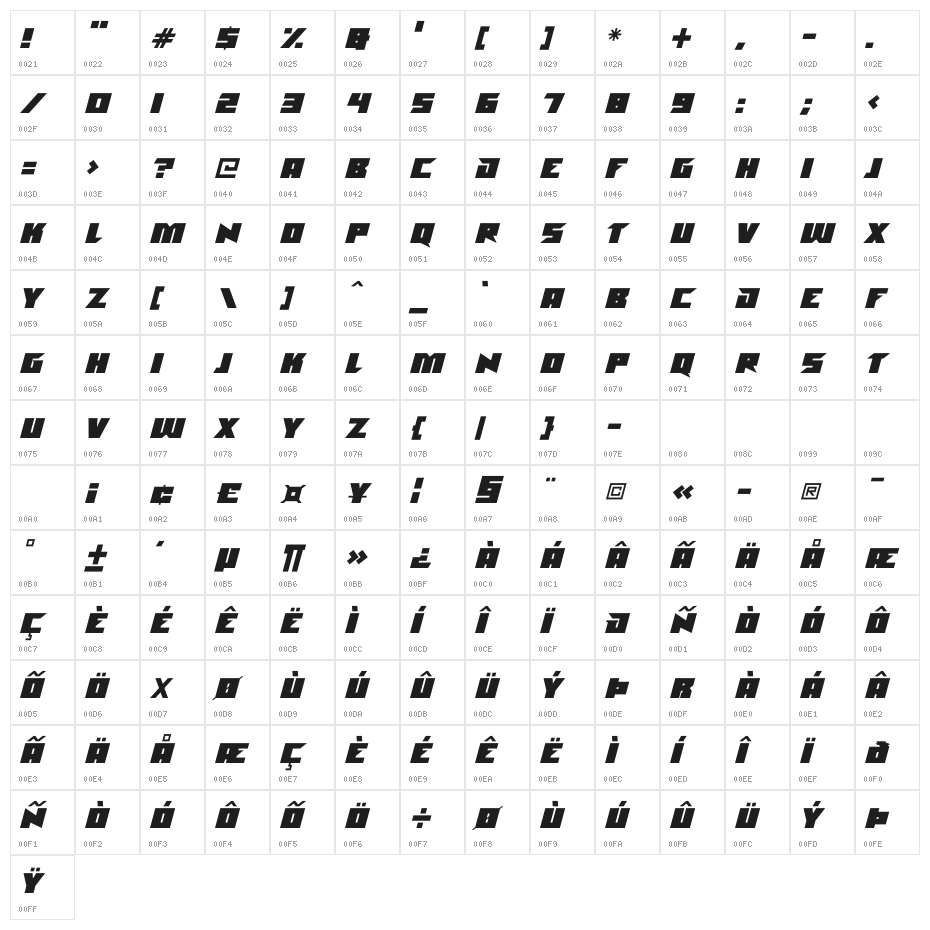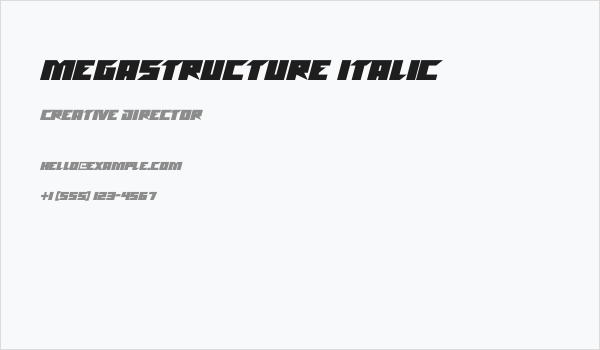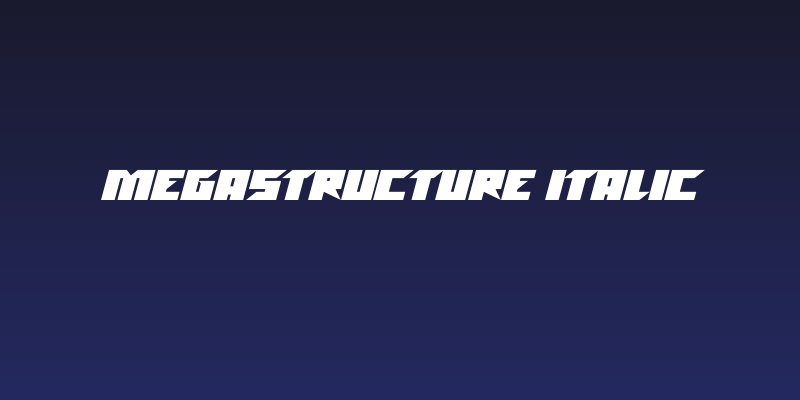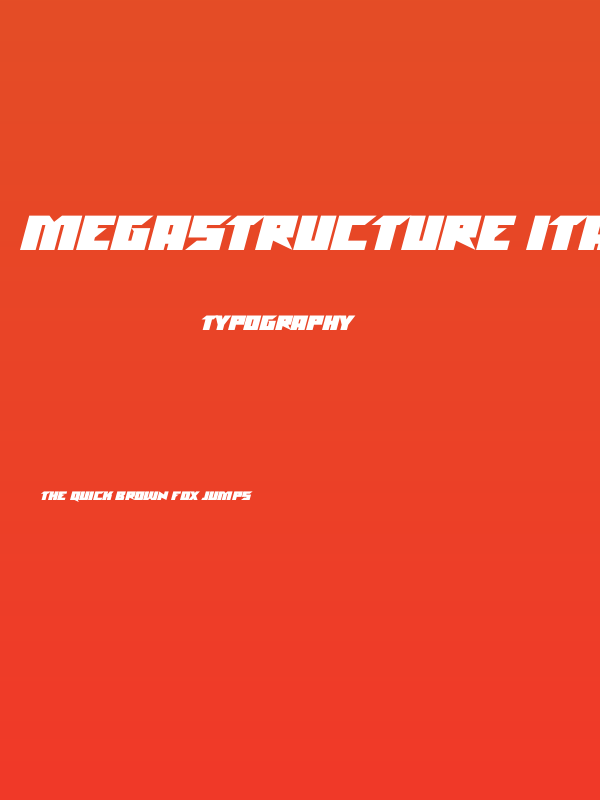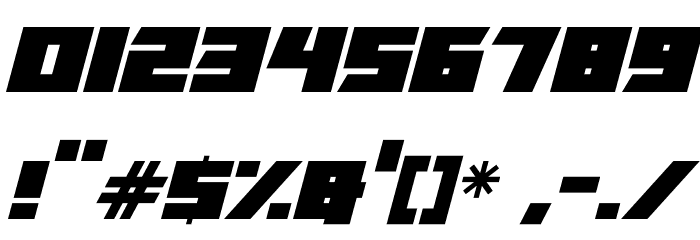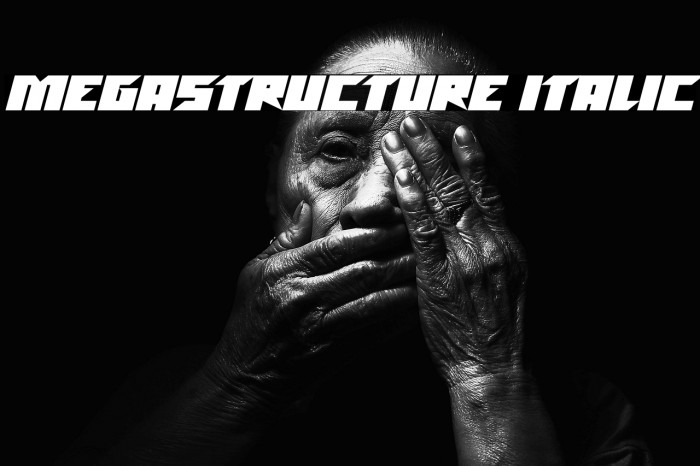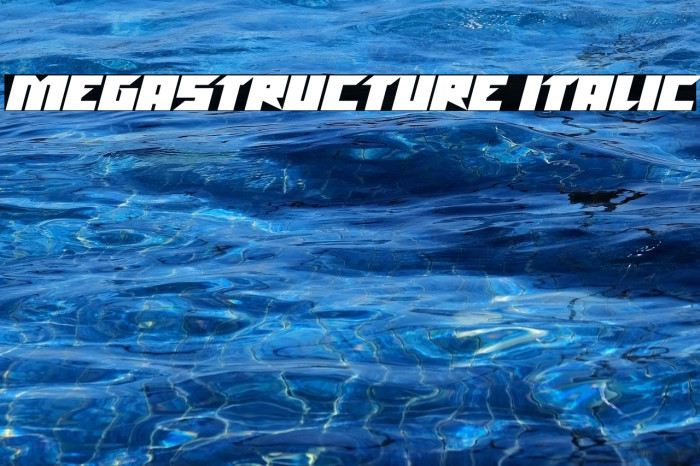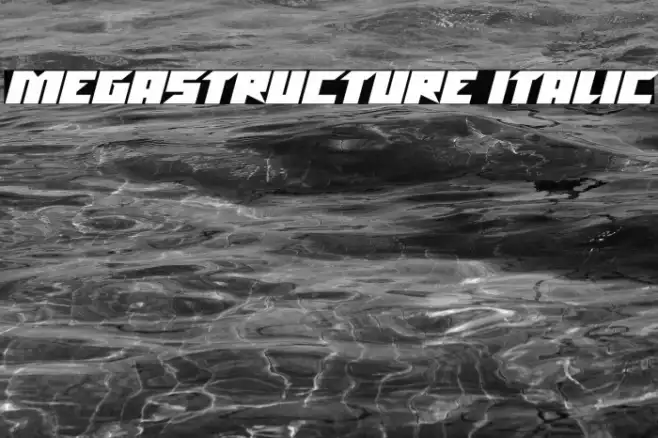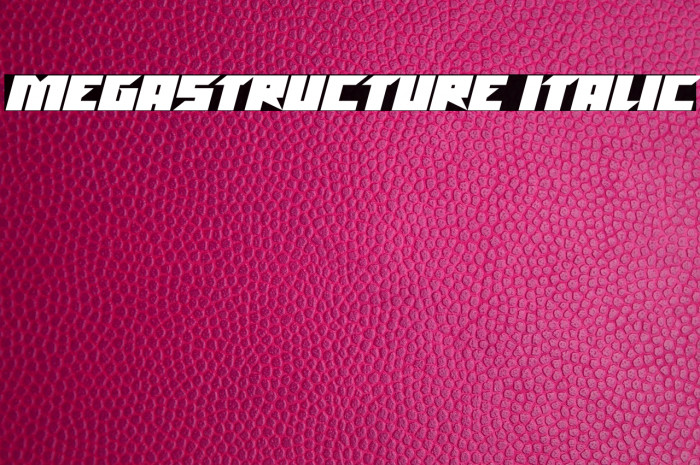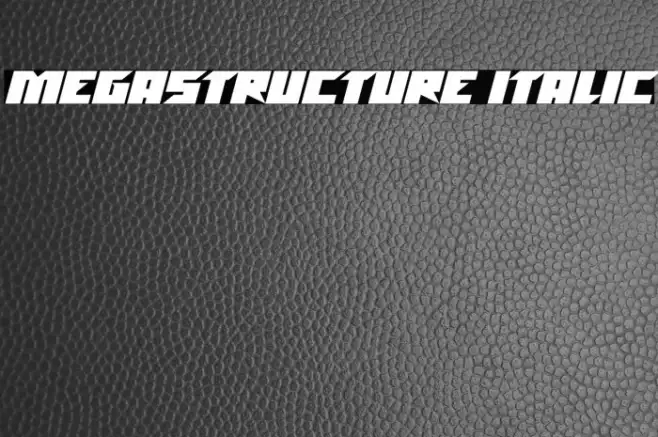
Megastructure Italic Font
Megastructure Italic Description
This font features a bold, angular design with a futuristic and dynamic appearance. The characters are sharply cut with geometric precision, giving them a strong, impactful presence. The uppercase and lowercase letters maintain a consistent style, with each character exhibiting a unique, edgy flair. The numbers and special characters follow the same design ethos, ensuring uniformity across all elements. The italic slant adds a sense of motion and speed, enhancing the font's modern aesthetic. This font is ideal for projects that require a bold statement and a contemporary look.